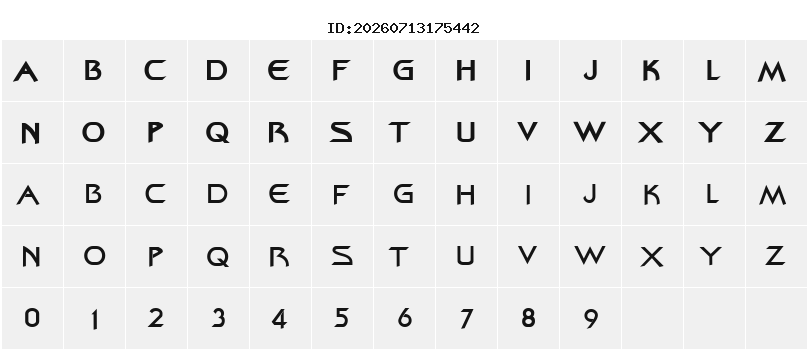
Bajoran Preview
• Font Name: Bajoran
• Full Font Name: Bajoran Regular
About Bajoran.ttf
Bajoran.ttf is a modern, elegant sans-serif font designed for ultimate readability and visual harmony. Perfect for branding, headlines, web design, and print materials.